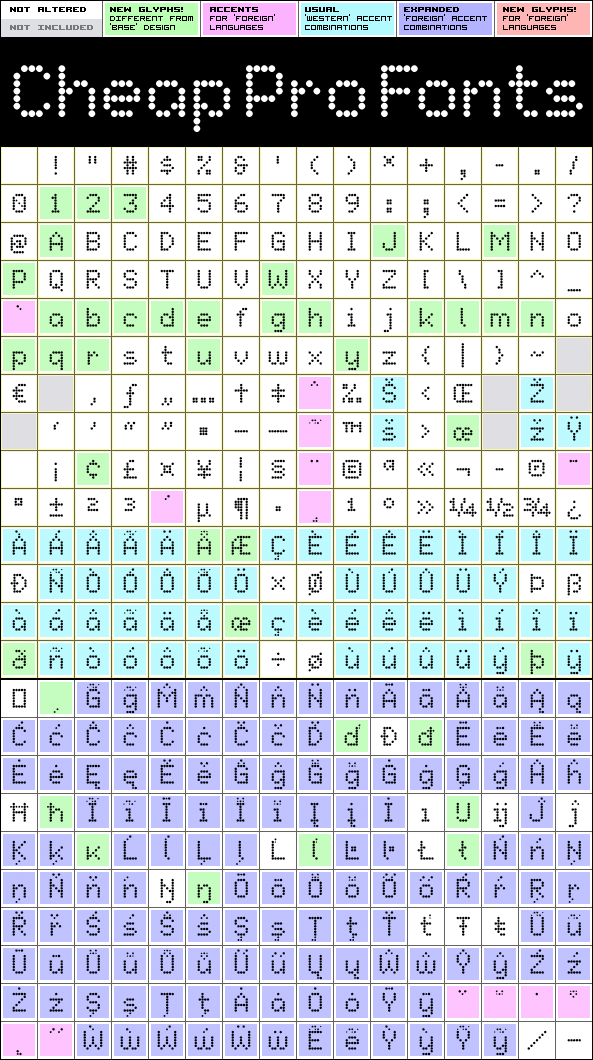
Matrise Text Pro
Matrise Text Pro by Roger S. Nelsson
A more oldstyle looking variant of the previous release Matrise Pro -again using some slightly smaller dots when designing the diacritics - this makes them easier to separate from the main letters. I have also used variable letter widths (and kerning), as opposed to the technology's original monospaced design - this to make the text more readable :)
Matrise Text Pro is a professionally reworked font that contains an extended character set for setting text in 65 languages requiring more than the basic A-Z!